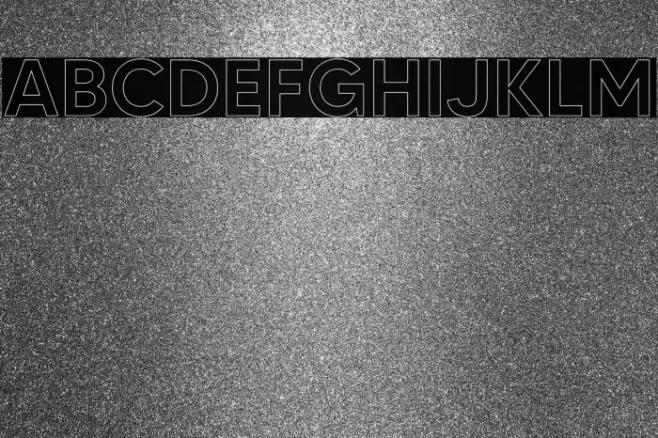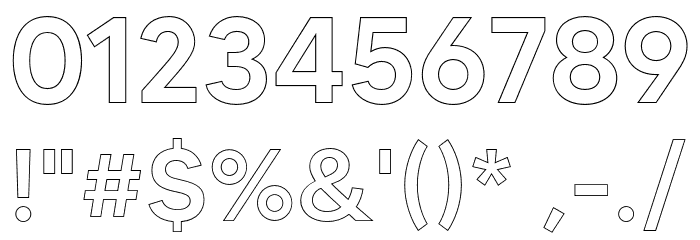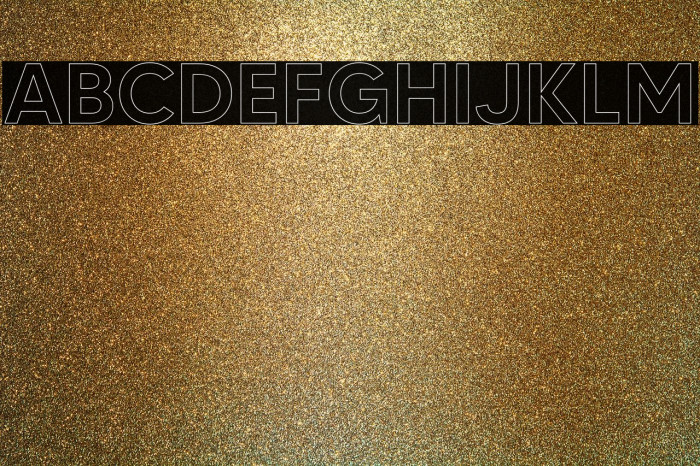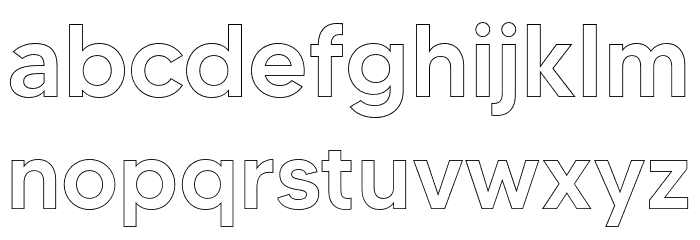
MADETOMMYOutline-Medium Font
MADETOMMYOutline-Medium Description
This font features a clean and modern outline style, characterized by its geometric and uniform letterforms. The uppercase and lowercase letters maintain a consistent width, creating a harmonious and balanced appearance. The numerals are equally well-proportioned, ensuring readability and visual appeal. Special characters are included, offering versatility for various design needs. The font's outline nature gives it a unique aesthetic, making it suitable for projects that require a contemporary and stylish look.
A modern, geometric outline font with consistent letterforms and balanced proportions from Uncategorized fonts.
- Proposed Projects: Ideal for branding, headlines, posters, and digital media where a modern and stylish appearance is desired.
- Use Case: Headlines, Logos, Branding